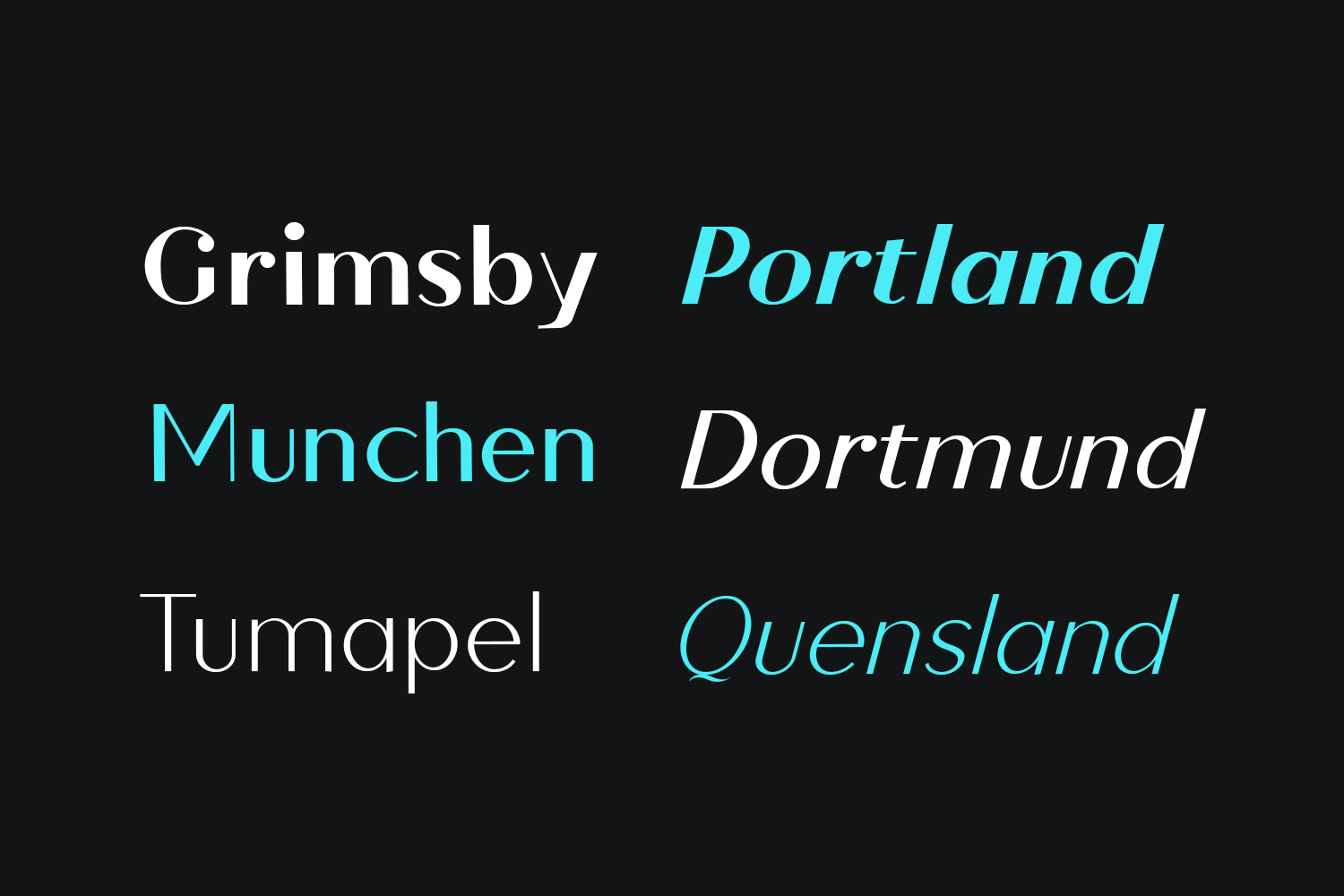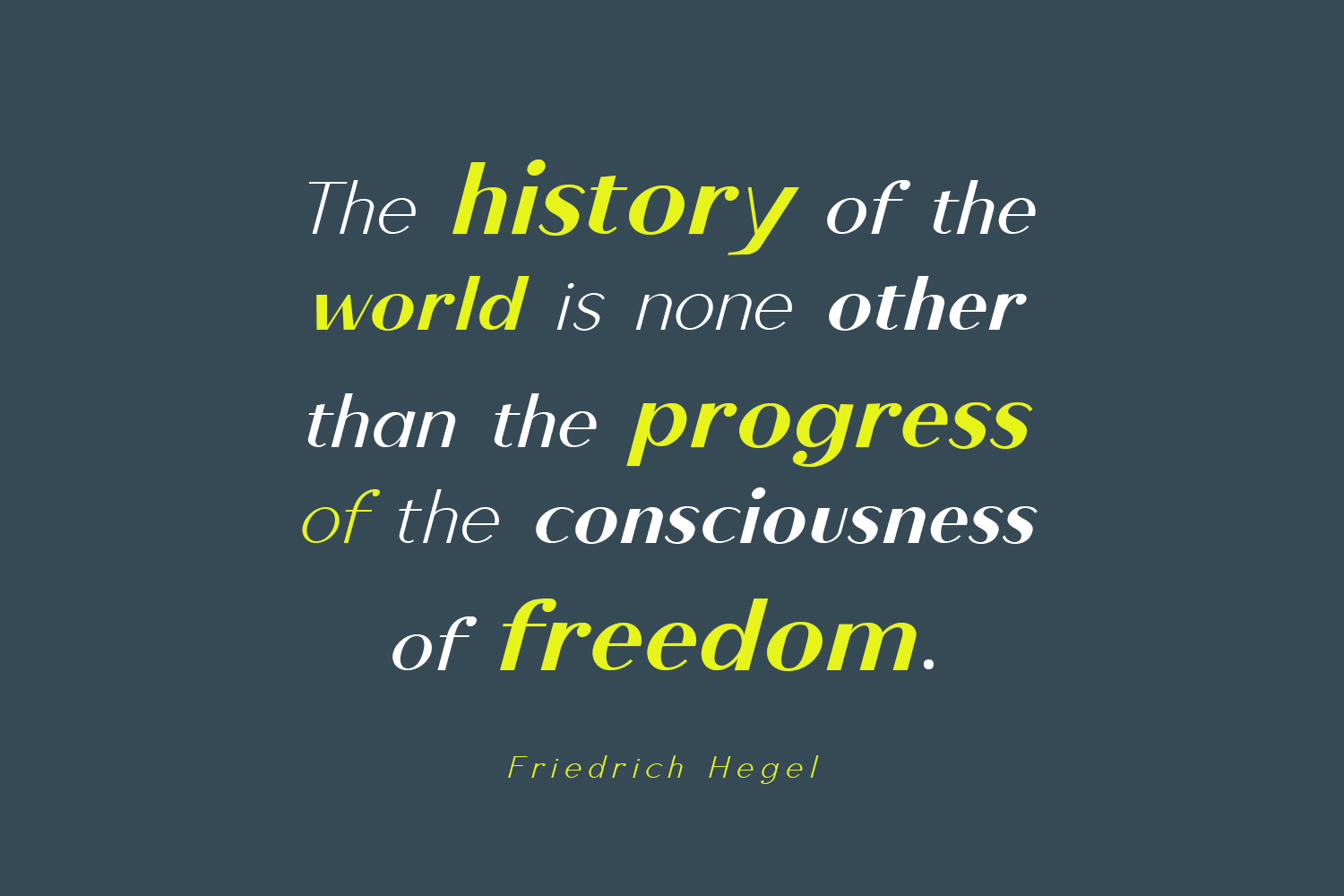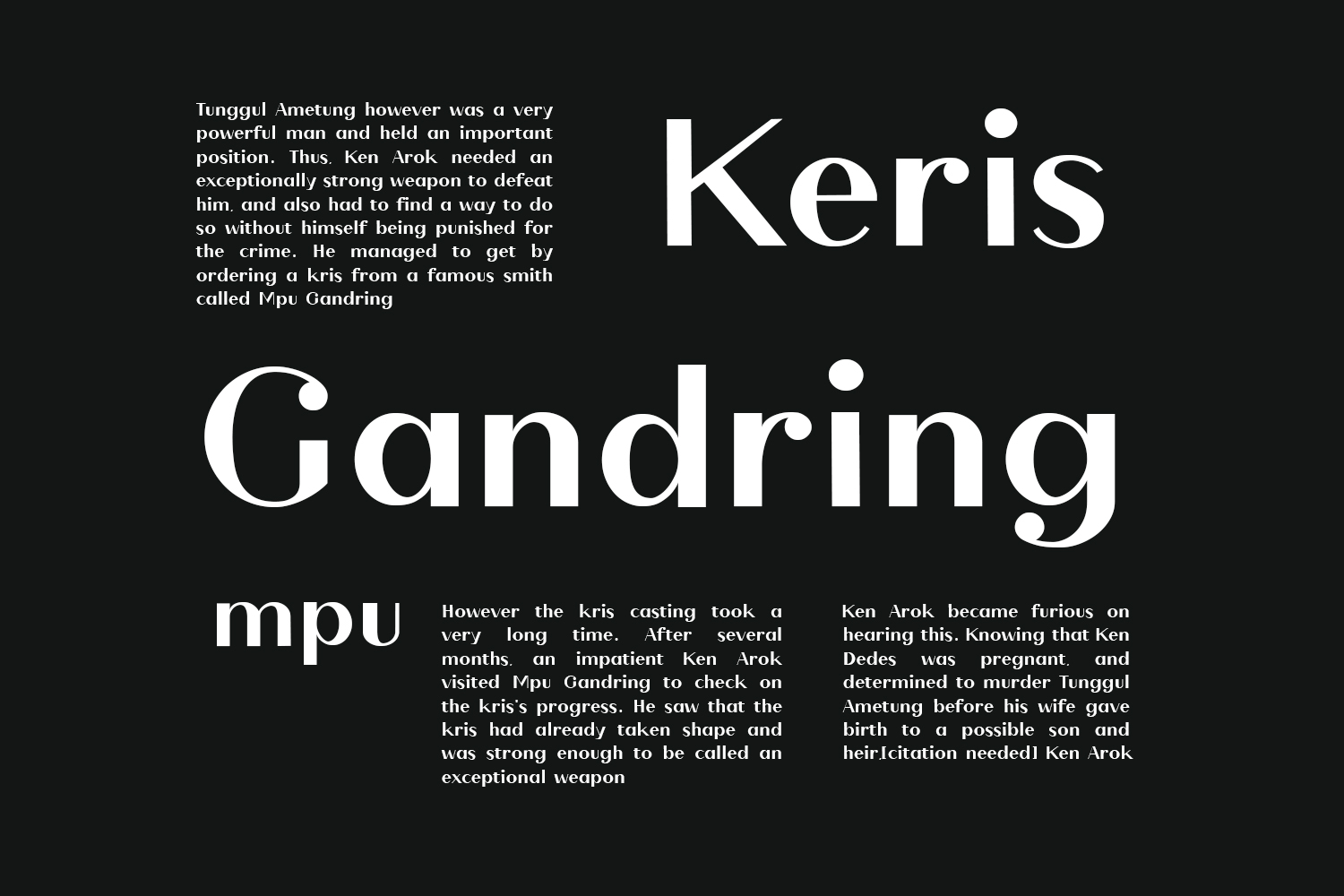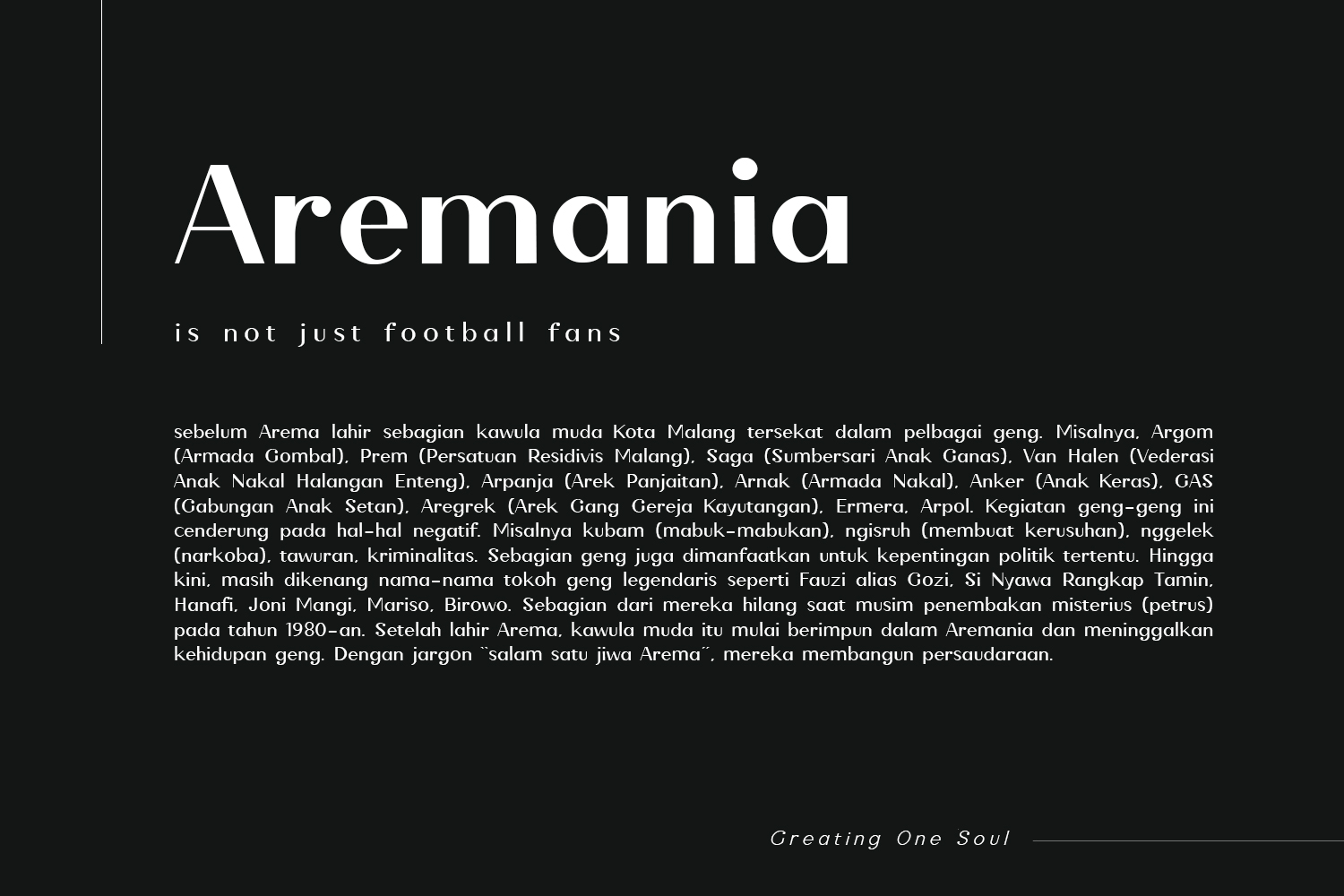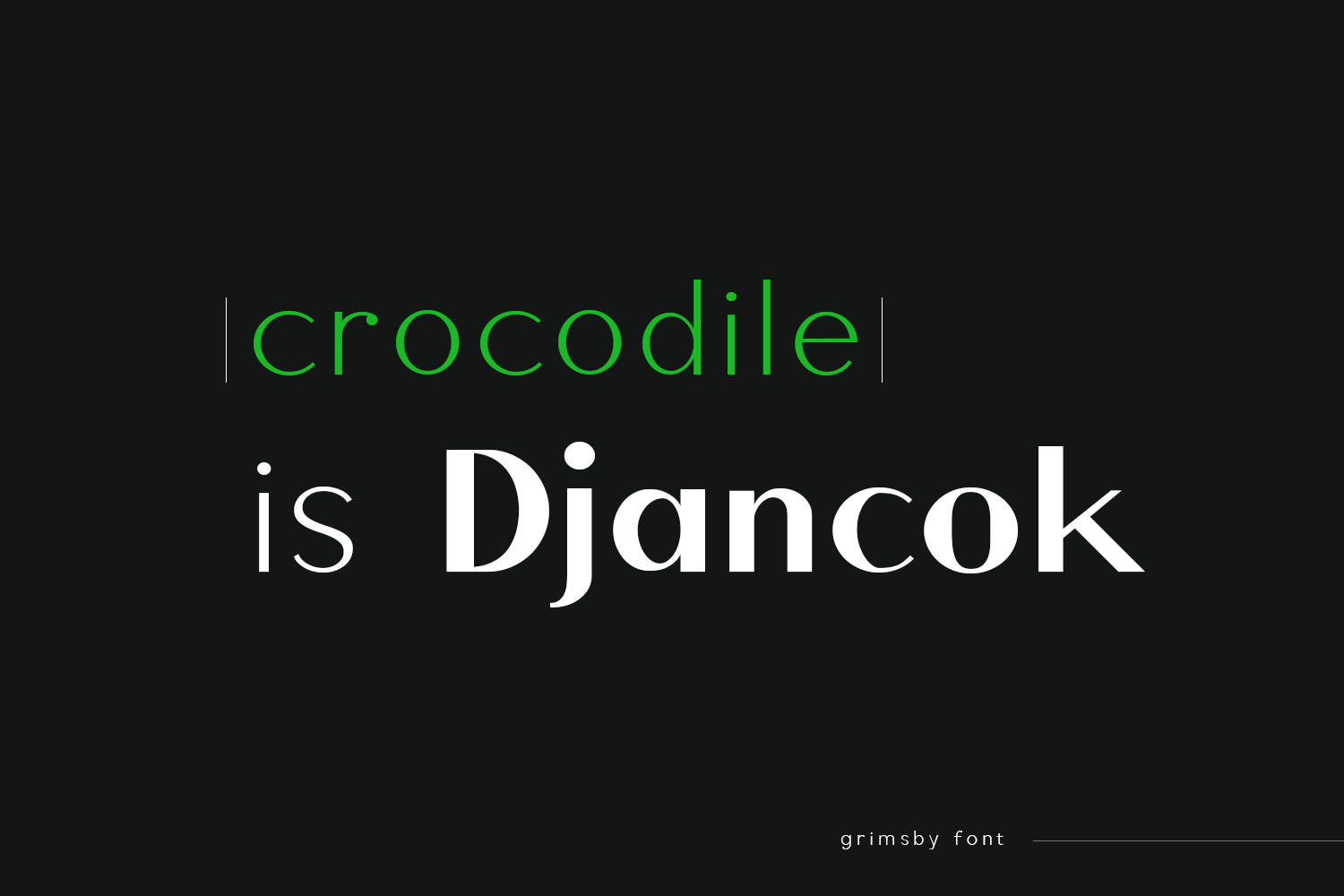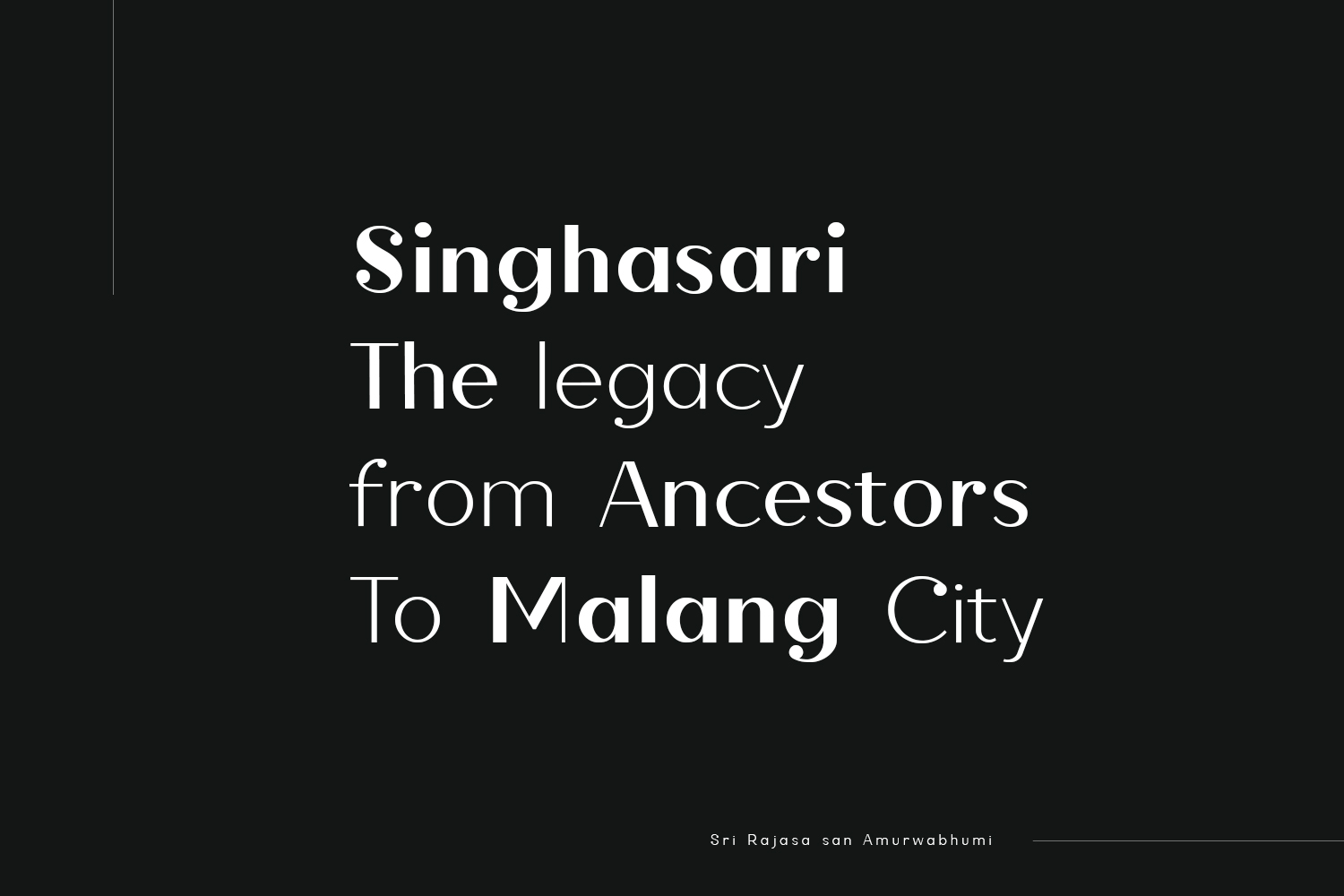
Discover the Elegance of Grimsby Font: A Timeless Sans Serif for Designers
In the world of typography, a font can make or break a design. For designers and crafters looking for a typeface that exudes elegance and sophistication, the Grimsby Font is an exceptional choice. This extremely pleasing and elegant sans serif font family has been gaining popularity among designers, and for good reason. With its different weights and styles, Grimsby offers versatility and legibility, making it perfect for both small and large formats.
The Unparalleled Editorial Look of Grimsby
What sets Grimsby apart from other sans serif fonts is its unparalleled editorial look. This font family boasts a timeless and classic aesthetic that will elevate your designs to new heights. Whether you’re working on a magazine layout, a brand identity, or a website, Grimsby’s elegant features will ensure that your designs look refined and sophisticated. The font’s clean lines, precise curves, and balanced proportions create a harmonious visual experience that will engage your audience and leave a lasting impression.
Key Features of Grimsby Font
- Extremely Legible: Grimsby is designed to be clear and readable, even at small sizes, making it perfect for body text, captions, and other applications where legibility is crucial.
- Multiple Weights and Styles: The Grimsby Font family includes a range of weights and styles, allowing you to experiment with different looks and moods in your designs.
- Timeless and Classic: Grimsby’s editorial look is reminiscent of classic typography, ensuring that your designs will remain stylish and relevant for years to come.
- Versatile: This font family is suitable for a wide range of design applications, from print materials like brochures and posters to digital platforms like websites and social media.
Why Choose Grimsby Font?
With so many fonts available, why should designers and crafters choose Grimsby? Here are a few compelling reasons:
- Elegance: Grimsby’s elegant design makes it perfect for projects that require a touch of sophistication and refinement.
- Flexibility: The font’s multiple weights and styles give you the flexibility to experiment with different looks and create a unique visual identity for your brand or project.
- Readability: Grimsby’s exceptional legibility ensures that your message will be communicated clearly, regardless of the format or size.
Tips for Using Grimsby Font Effectively
To get the most out of Grimsby Font, here are some tips for using it effectively in your designs:
- Pair with contrasting fonts: Combine Grimsby with a contrasting font to create visual interest and add depth to your design.
- Experiment with weights and styles: Don’t be afraid to try out different weights and styles to find the perfect combination for your project.
- Use for headlines and body text: Grimsby’s legibility and elegance make it suitable for both headlines and body text, allowing you to maintain consistency throughout your design.
| Font Name | Grimsby Font |
| Author | Kreativ_Fc |
In conclusion, the Grimsby Font is an exceptional choice for designers and crafters looking for a timeless and elegant sans serif font family. With its unparalleled editorial look, versatility, and legibility, Grimsby is perfect for a wide range of design applications. Whether you’re working on a print project or a digital platform, this font family is sure to elevate your designs and leave a lasting impression on your audience.